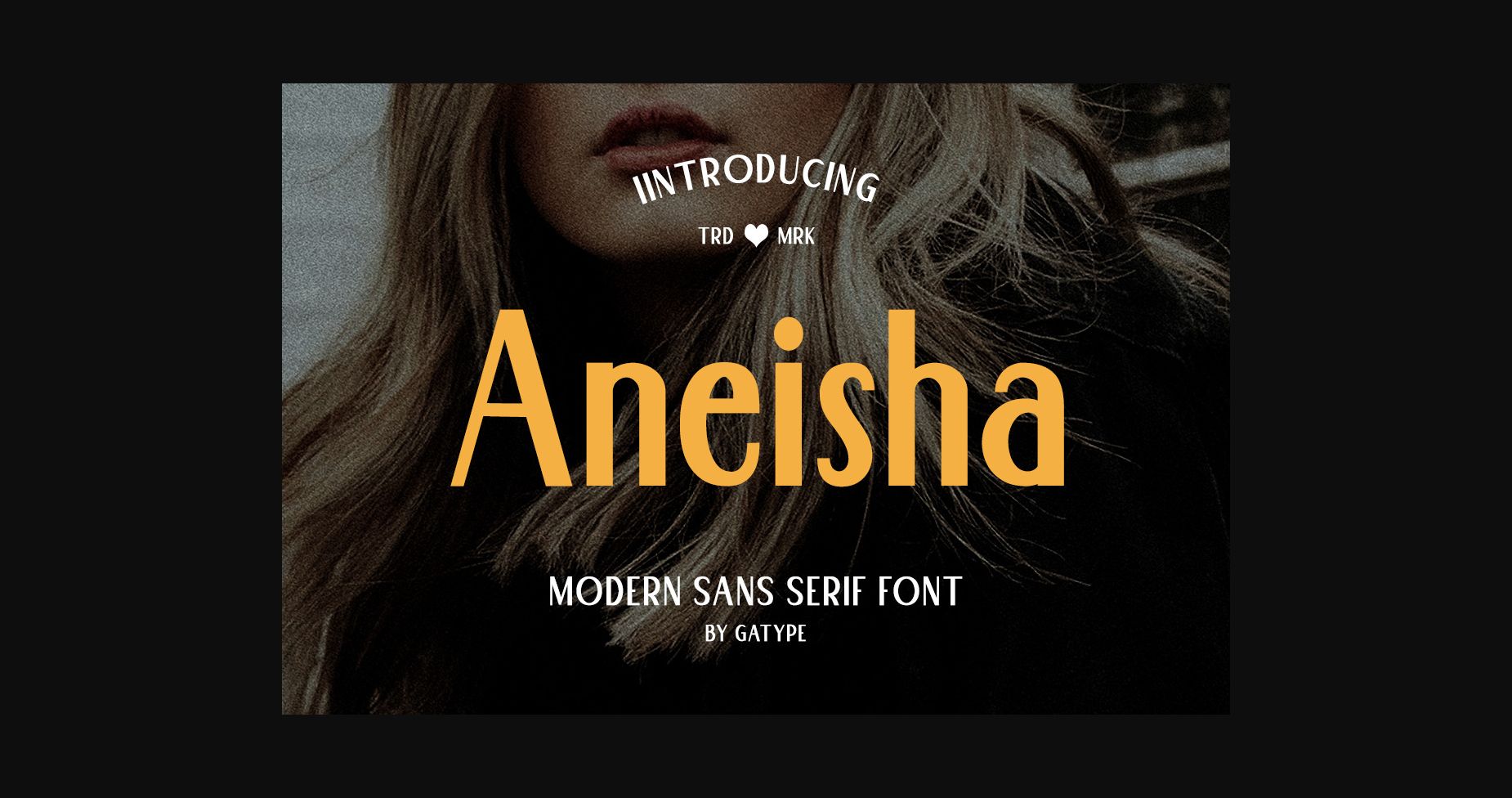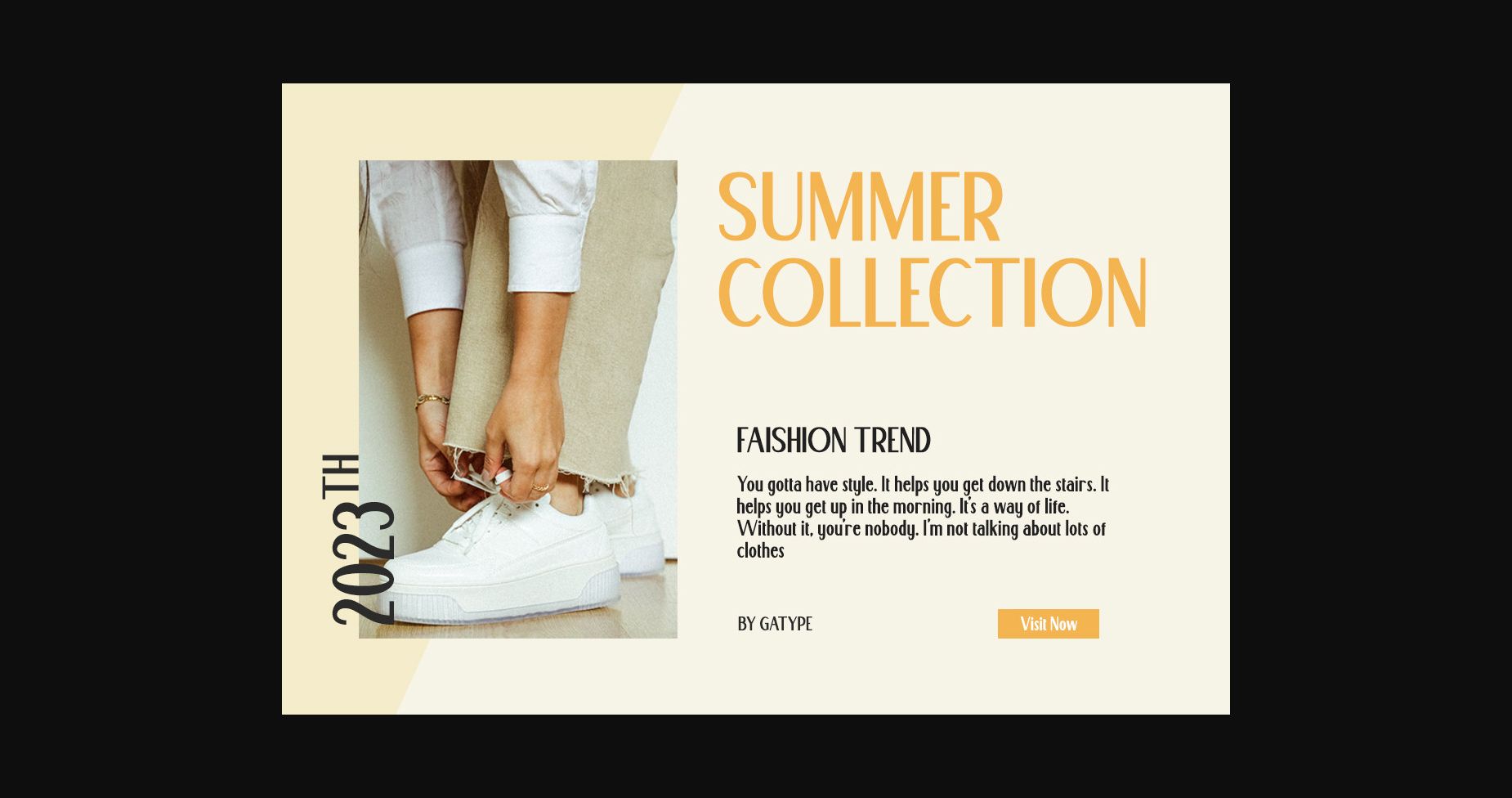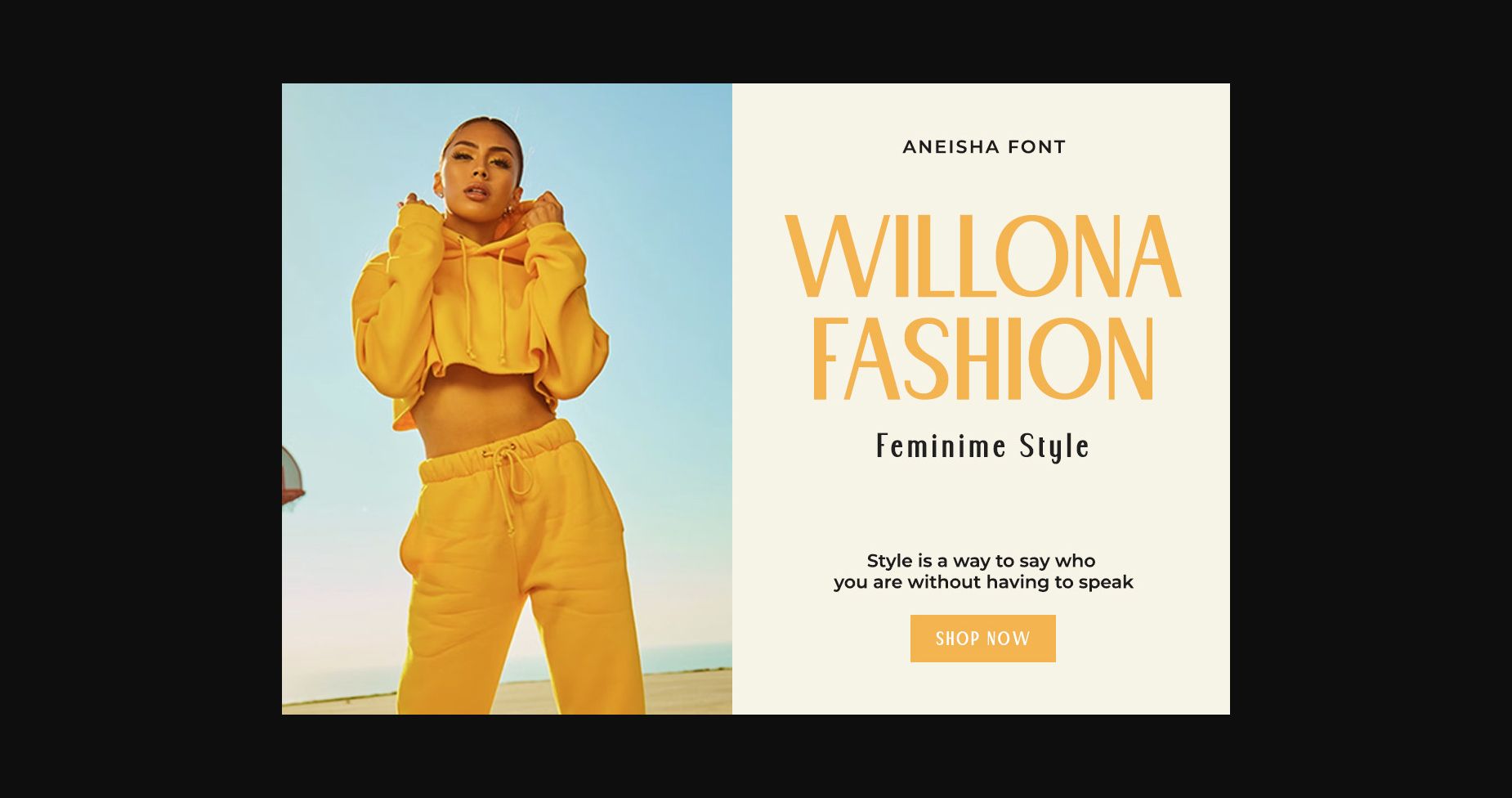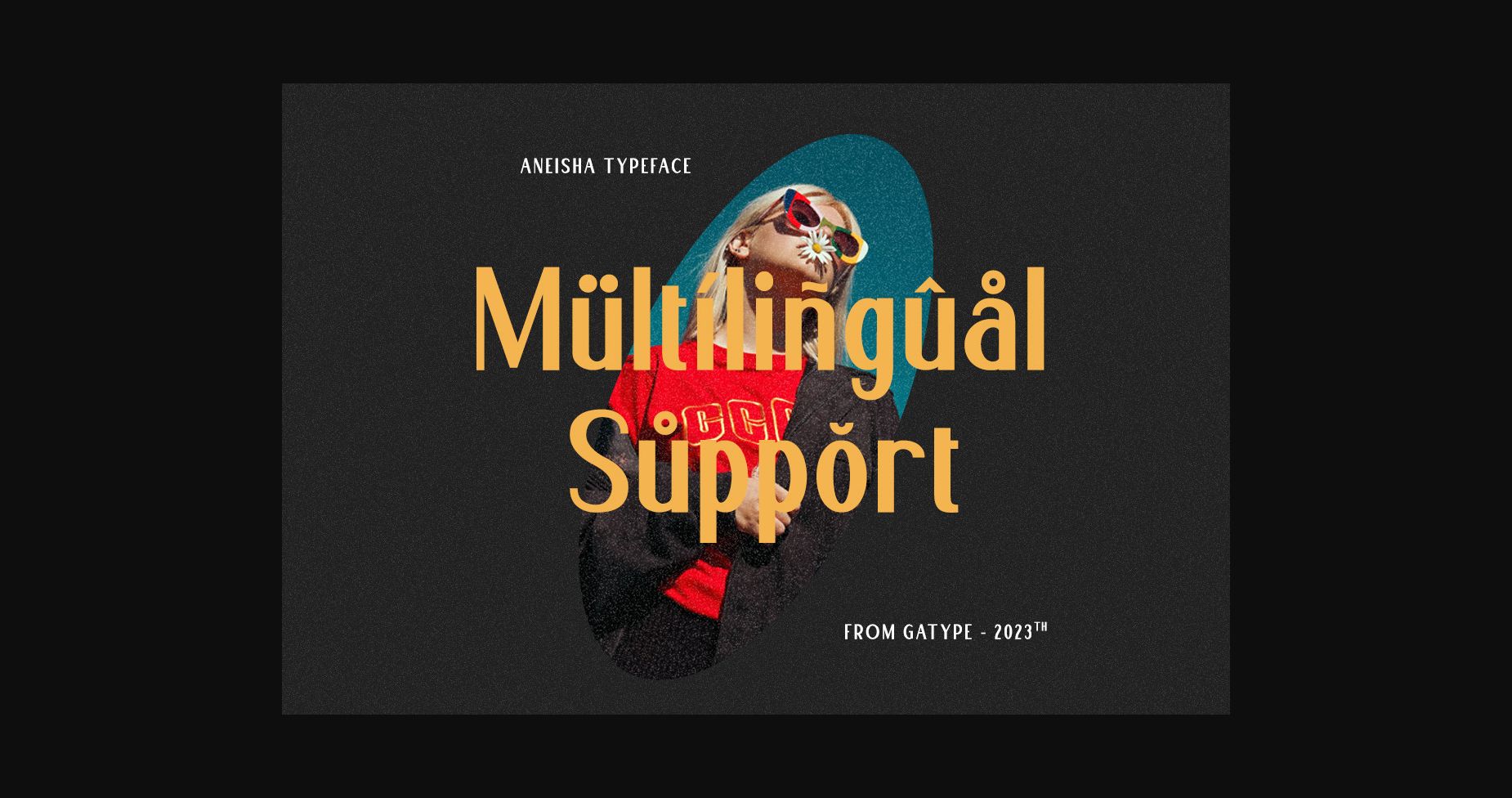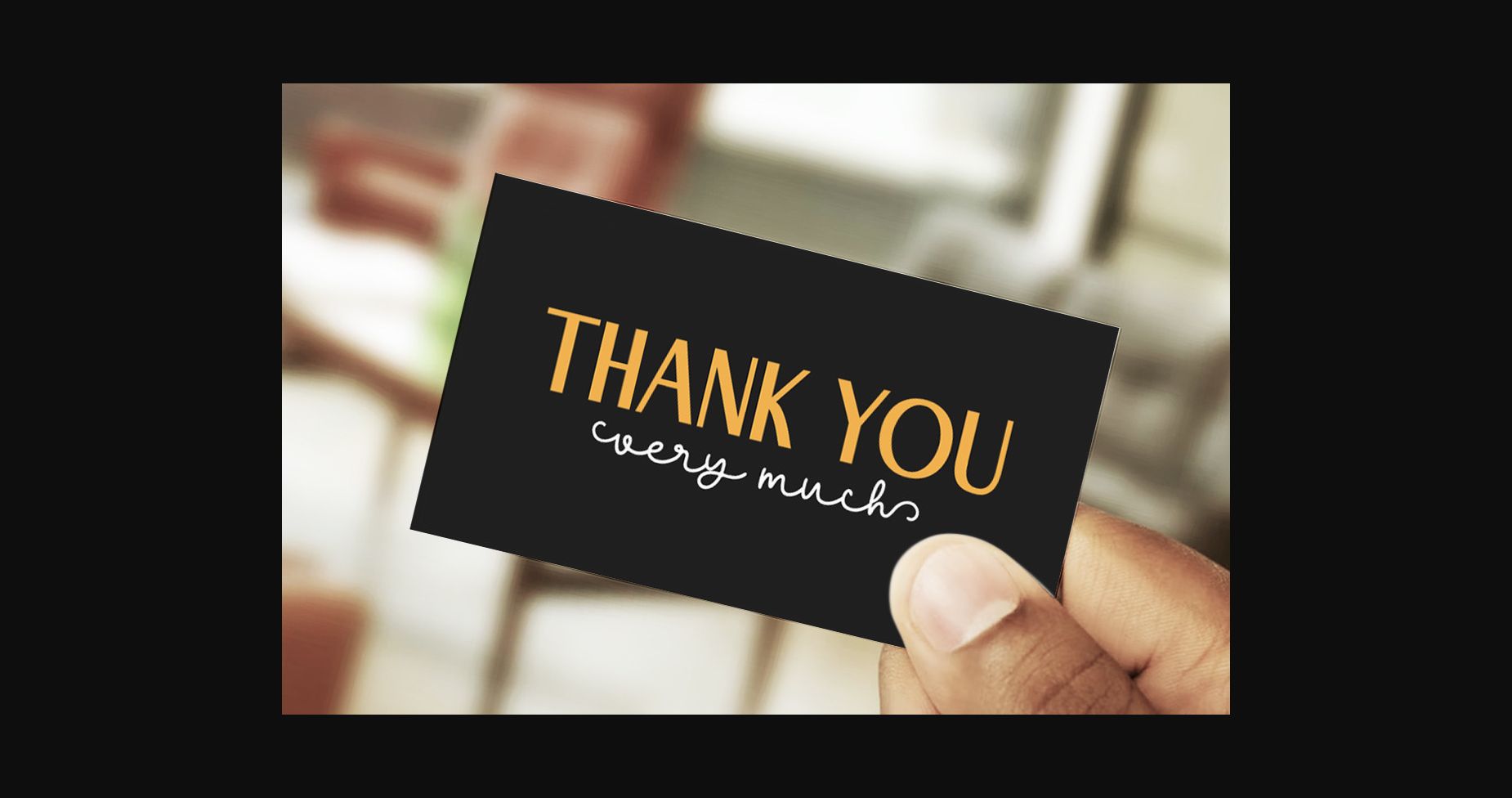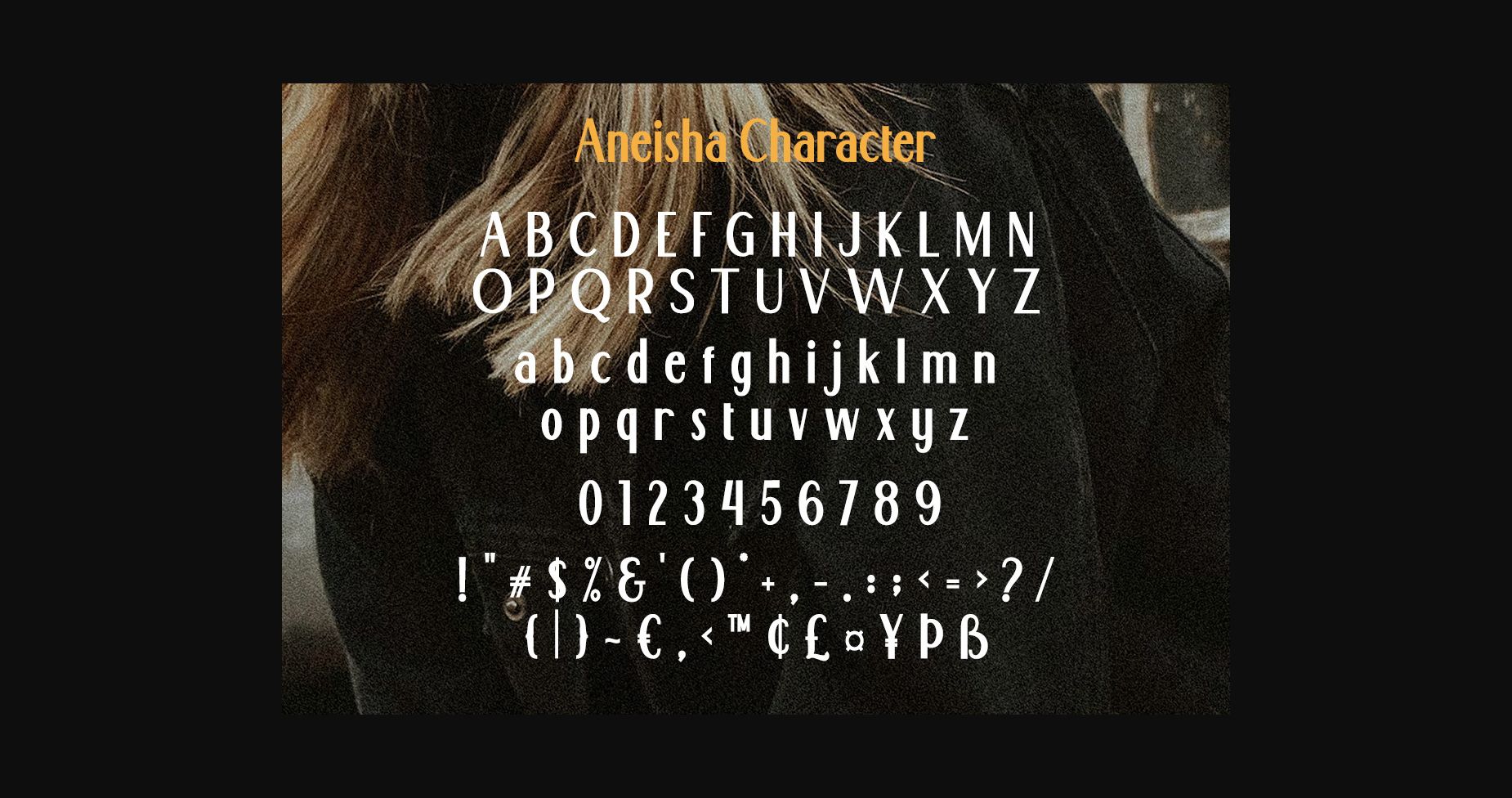
Made for text display purposes, the expanded Aneisha brings a modern and strong feel to your designs. With a bold style, this font is suitable as the main text/header text on websites or layout designs.